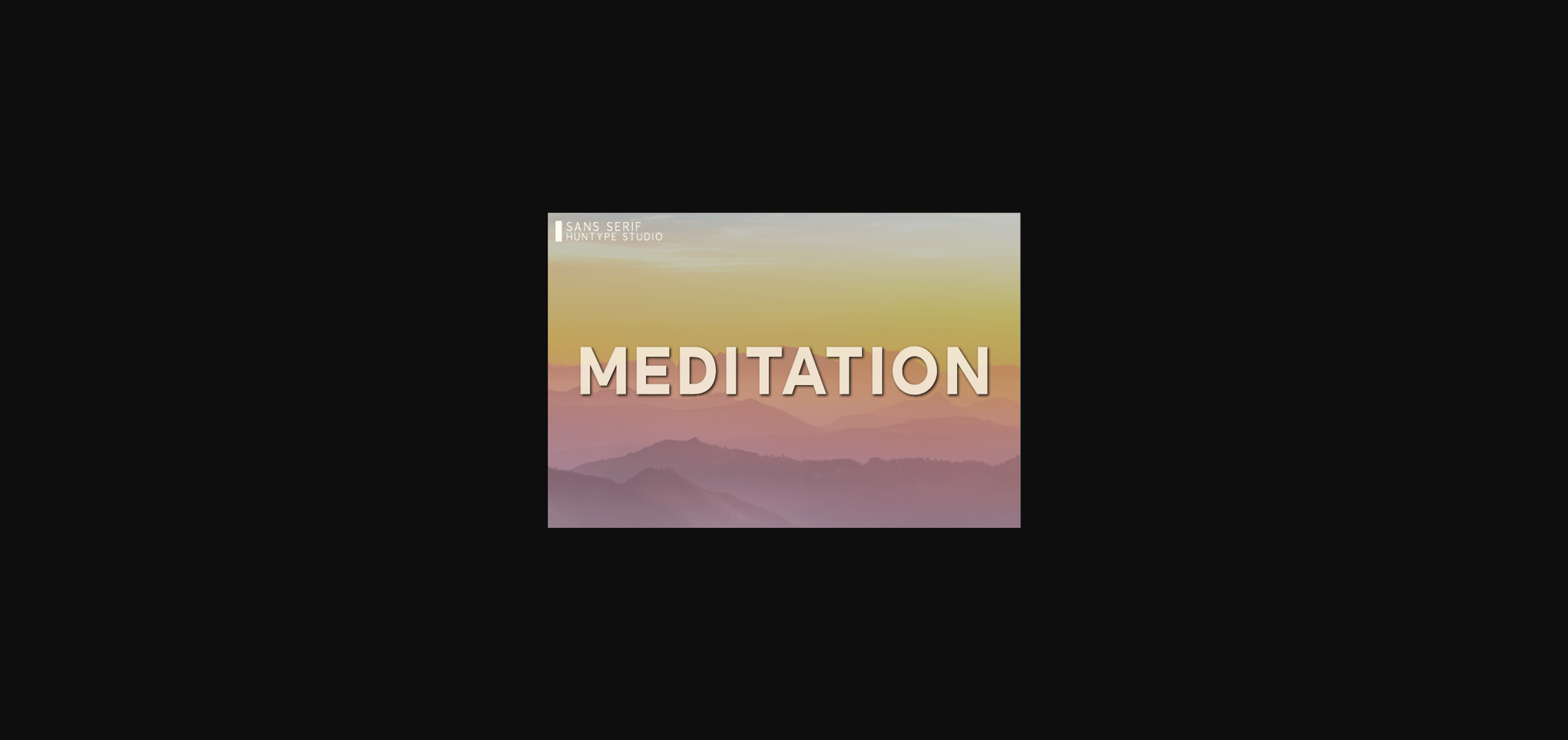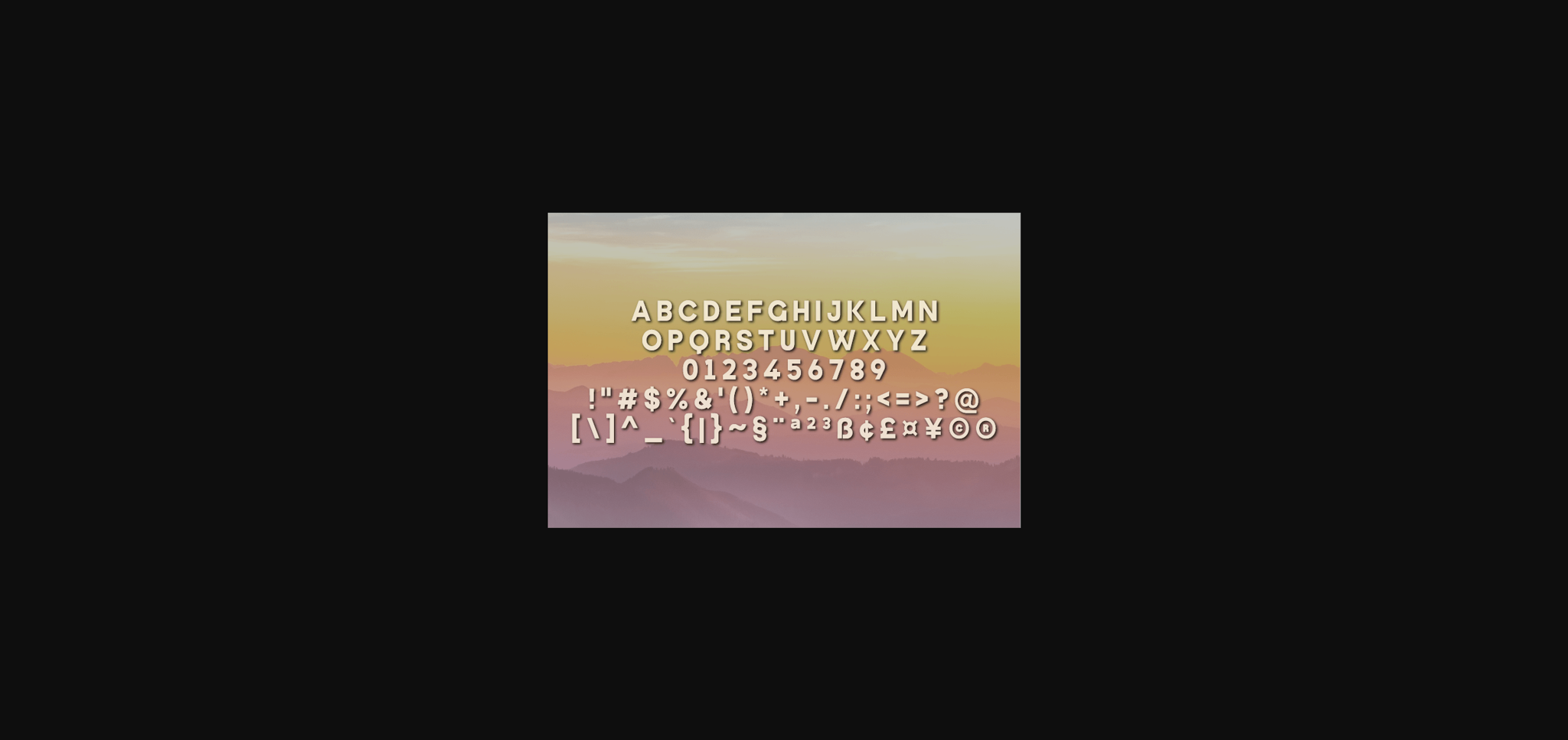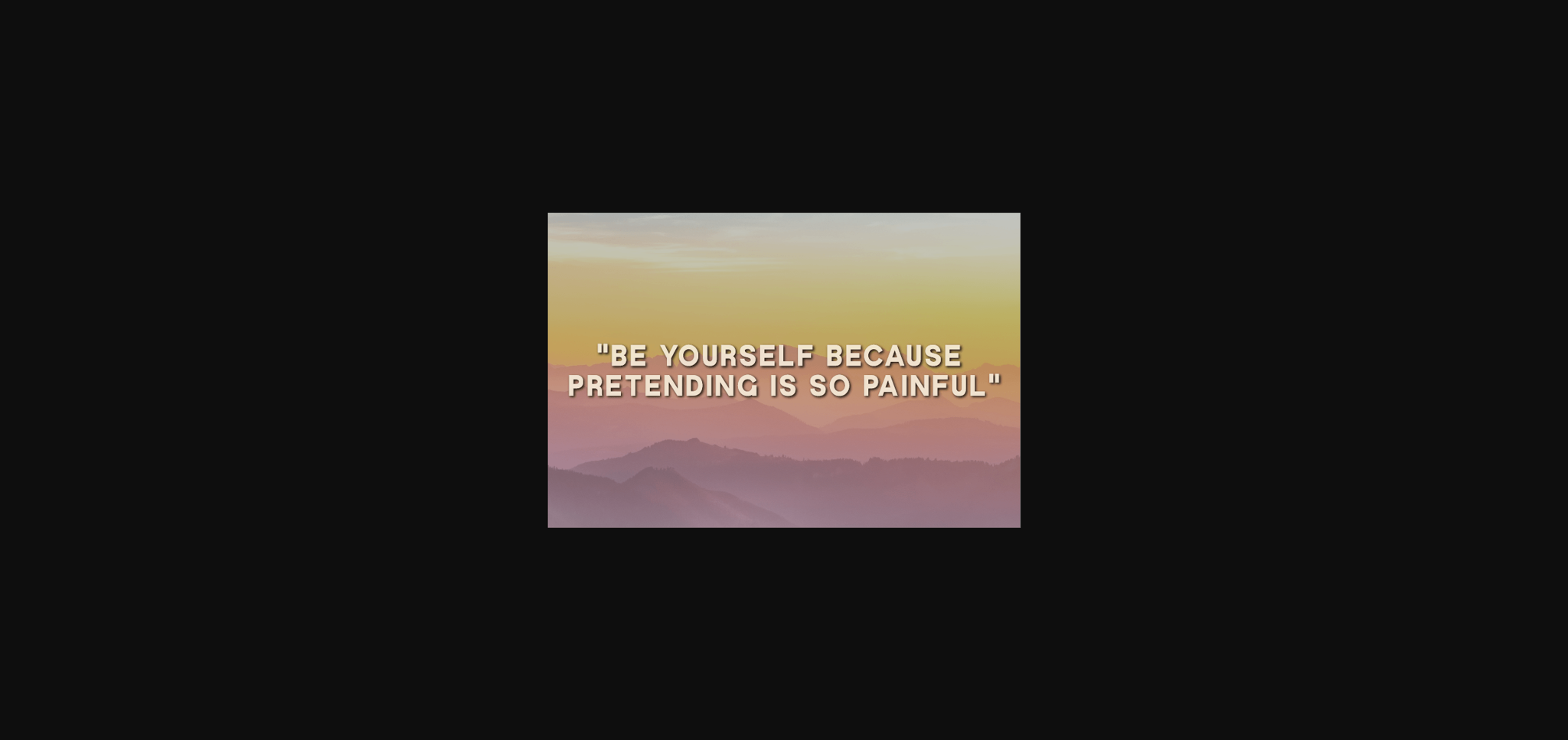
Meditation Font
About Meditation Font
Meditation is an all-caps sans serif font that is so versatile and looks great in just about any context. With smooth and clean lines and just a touch of contrast, this font works beautifully for logos, branding, and web headings.